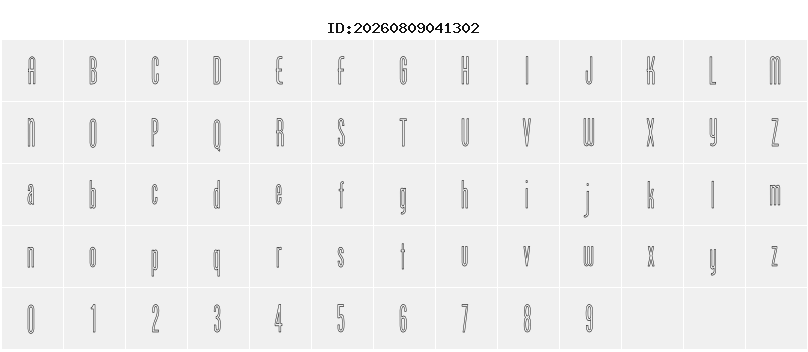
PhoenixHC Preview
About PhoenixHC.ttf
PhoenixHC.ttf is a modern, elegant sans-serif font designed for ultimate readability and visual harmony. Perfect for branding, headlines, web design, and print materials.